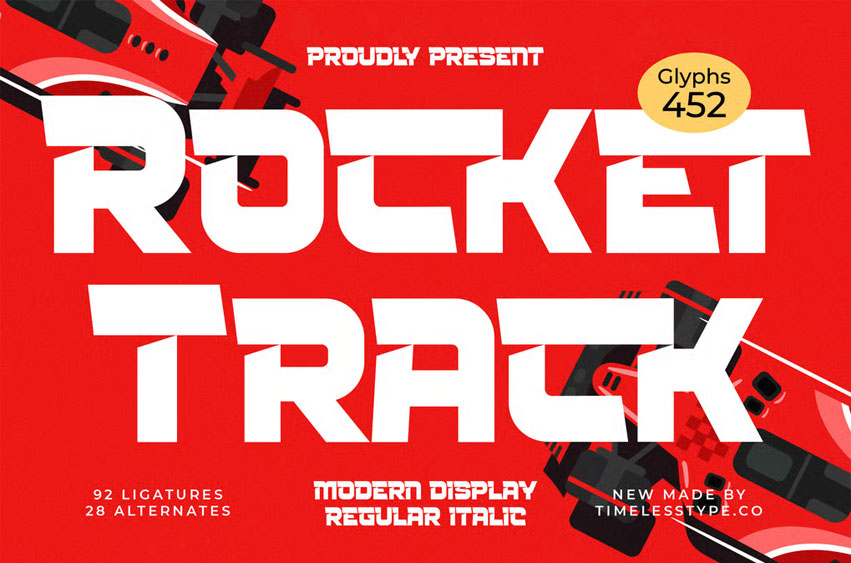
Rocket Track Font
Rocket Track Font is a modern display font with a bold, futuristic style, inspired by speed and precision. Featuring strong geometric forms, unique ligatures, and dynamic alternates, this typeface is ideal for posters, logos, headlines, branding, packaging, and editorial layouts. With its energetic look and cutting-edge design, Rocket Track is a versatile choice for both digital and print projects, bringing power and modern creativity to your typography.